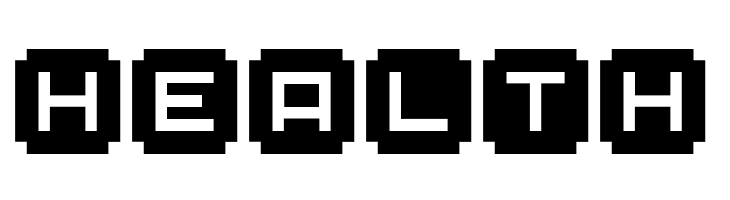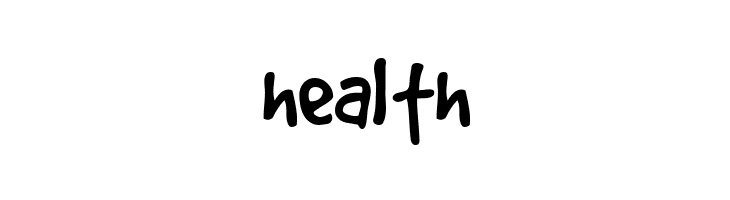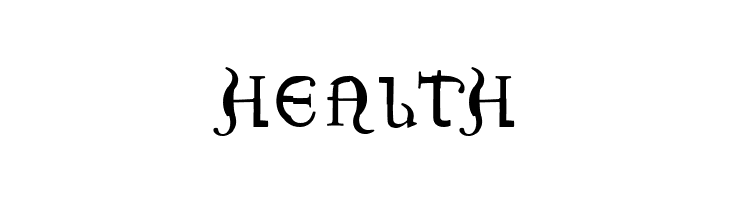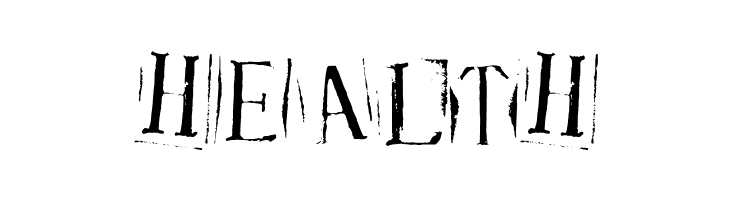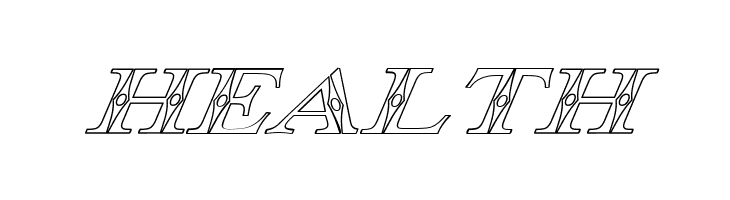
A graceful and elegant script font with smooth, connected strokes and subtle flourishes.
An elegant, flowing script font with ornate flourishes and artistic flair.
A bold, high-contrast serif font with a classic yet modern style.
A bold, slanted font with thick strokes and rounded edges, exuding energy and modernity.
A bold, rounded font with a modern and playful style.
A dynamic, handwritten font with fluid, elongated strokes and a casual elegance.
A bold, narrow display font with geometric, uniform strokes.
A bold, geometric outline font with a modern, condensed style.
A bold, hand-drawn font with a playful, marker-like style.
A playful, handwritten font with a whimsical and dynamic style.
A bold, blocky font with a strong, modern aesthetic.
An elegant script font with fluid, continuous strokes and a sophisticated style.
A delicate, elegant handwritten font with flowing lines and whimsical charm.
A bold, playful handwritten font with a casual and quirky style.
A fluid and elegant script font with a handwritten feel.
A charming script font with elegant swirls and a playful flair.
A pixelated, sans-serif font with a digital, retro style.
An elegant script font with flowing, interconnected characters and high contrast strokes.
A bold, rounded font with playful and modern elements.
A bold, dynamic script font with a flowing, connected style.
A modern, geometric font with rounded edges and a clean, minimalistic style.
An elegant, flowing script font with a handwritten appearance.
A dynamic, fluid script font with elegant, flowing strokes and a cursive appearance.
A bold, cursive font with a flowing, handwritten style.
A tall, narrow, and modern font with a sleek, minimalistic design.
A charming and elegant script font with a hand-drawn appearance.
A bold, decorative font with a modern, angular design.
A bold, elegant script font with flowing, cursive letterforms.
A bold, serif font with strong strokes and classic elegance.
An artistic and dynamic font with flowing, interconnected strokes.
A lively and expressive script font with flowing, cursive letterforms.